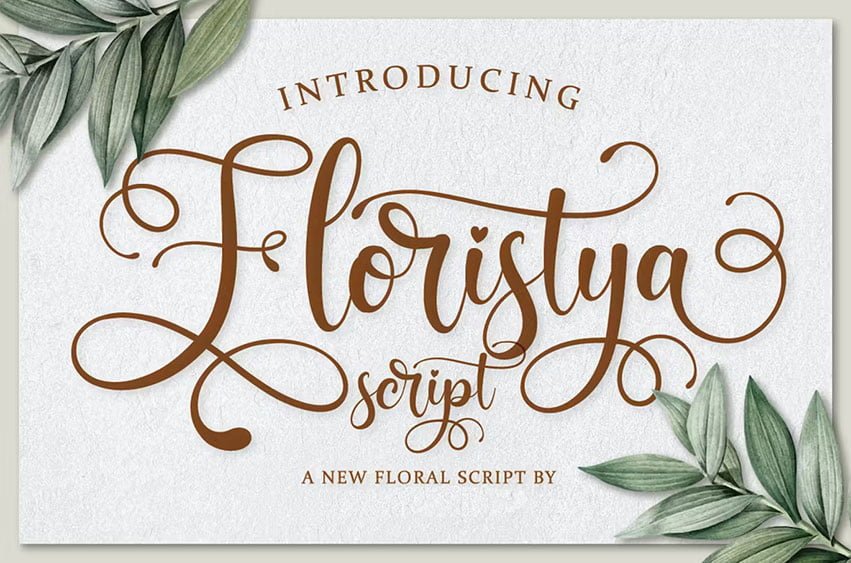
Floristya Font Script is a floral script that bring luxury feel. The natural hand writing script is suitable for you who needs a typeface for headline, logotype, wedding invitations, valentines day, branding, packaging, advertising, watermark, etc. This typeface is comes in uppercase, lowercase, punctuations, symbols & numerals, support opentype features in Private Use Area (PUA) Unicode. stylistic set alternate, ligatures, etc also support multilingual.